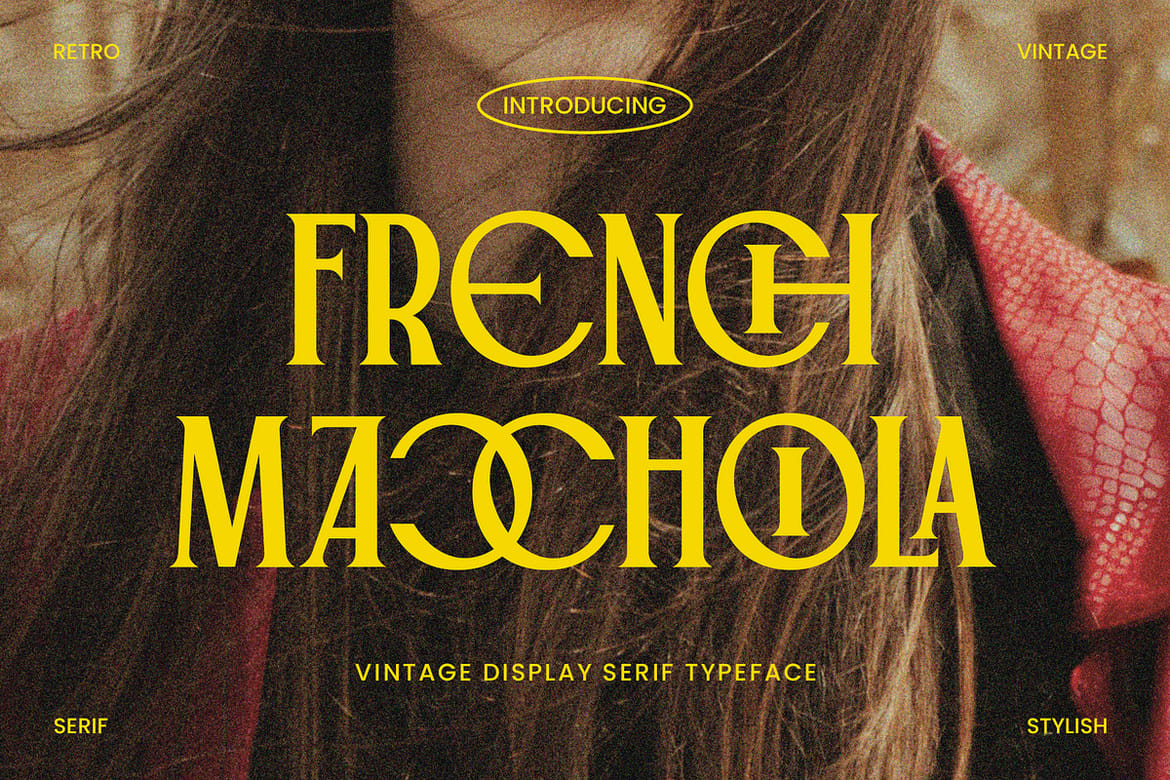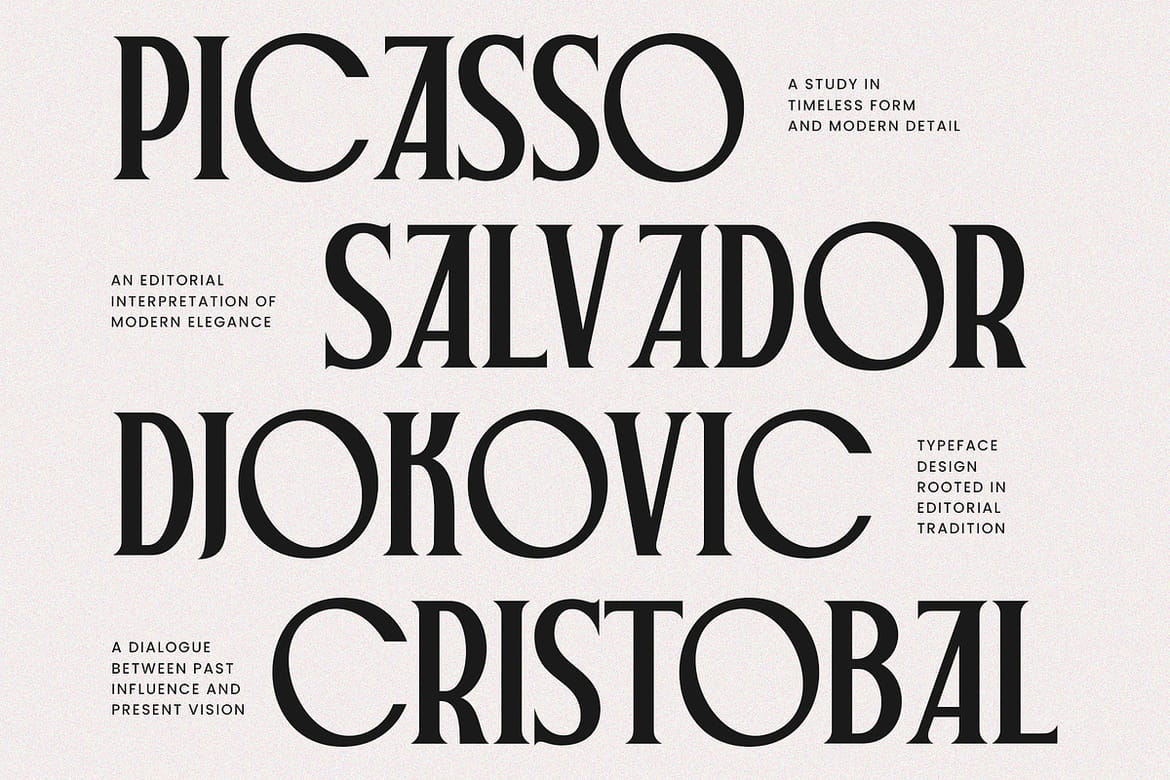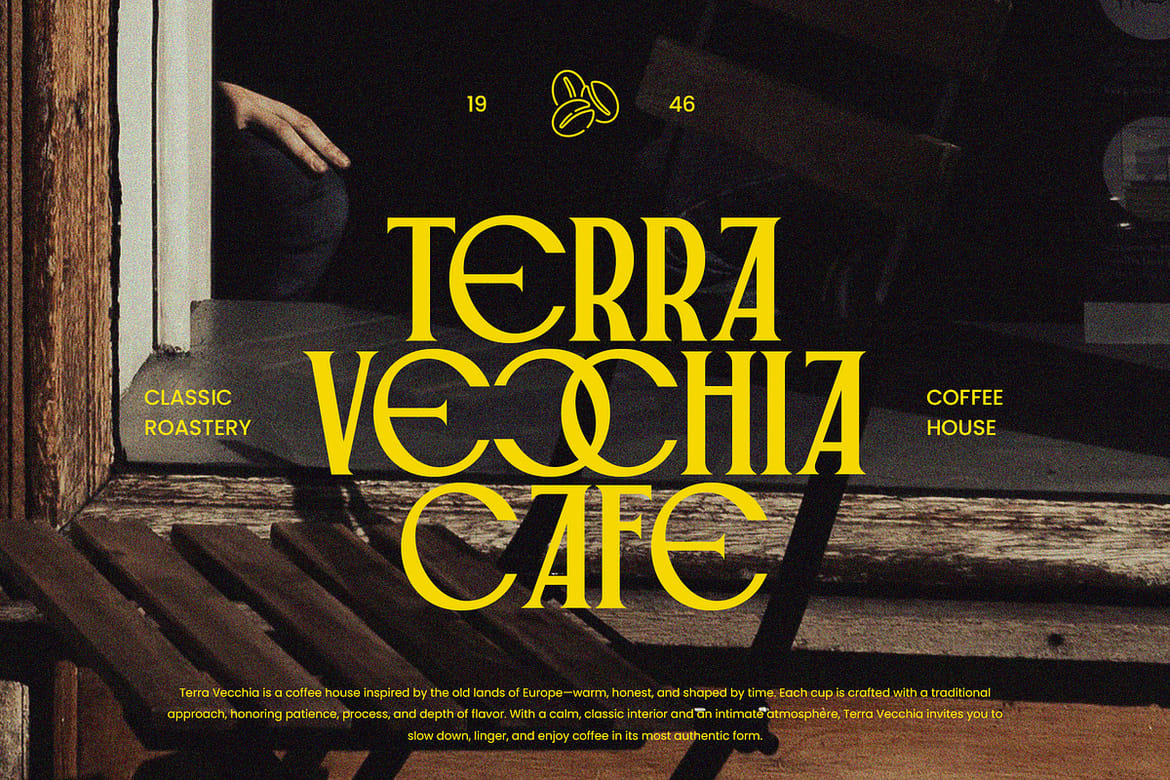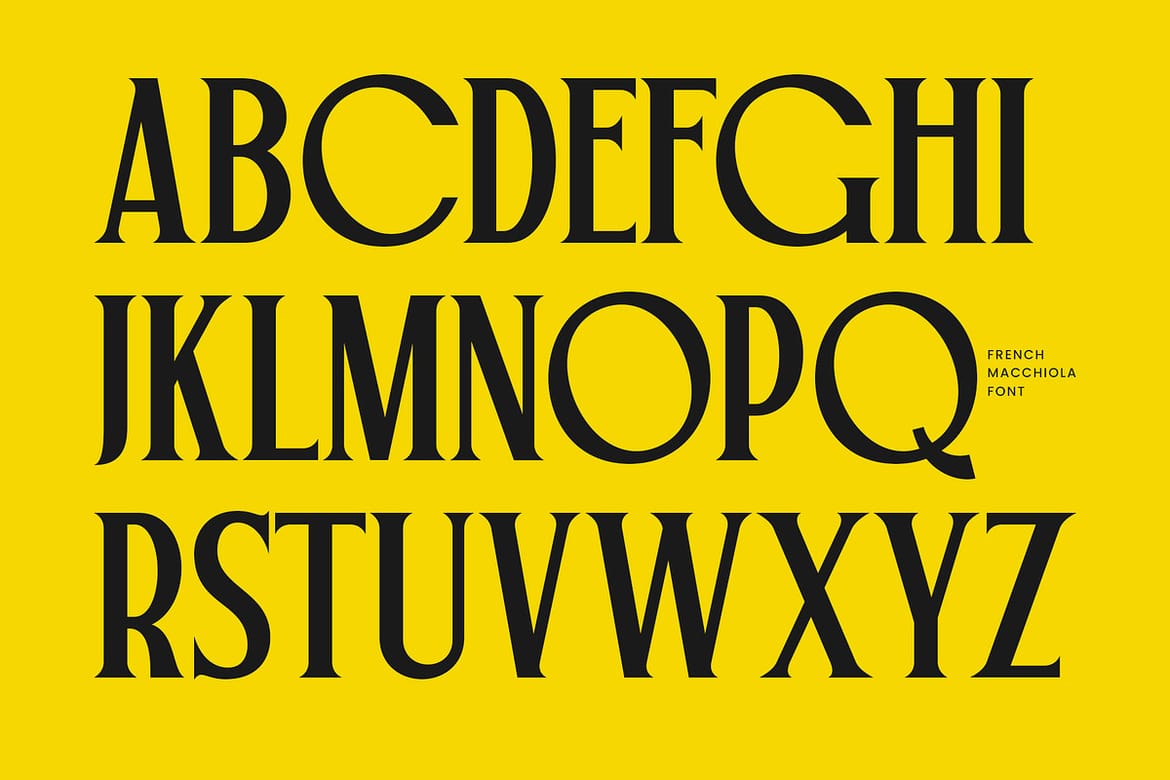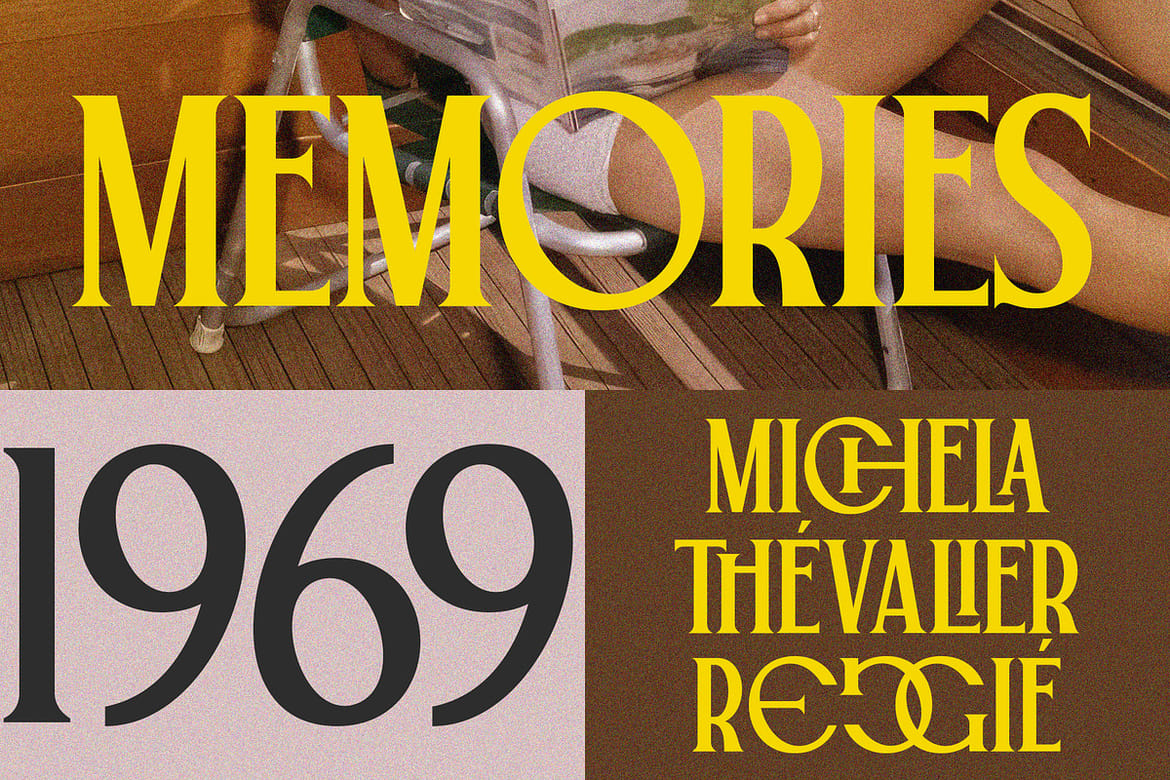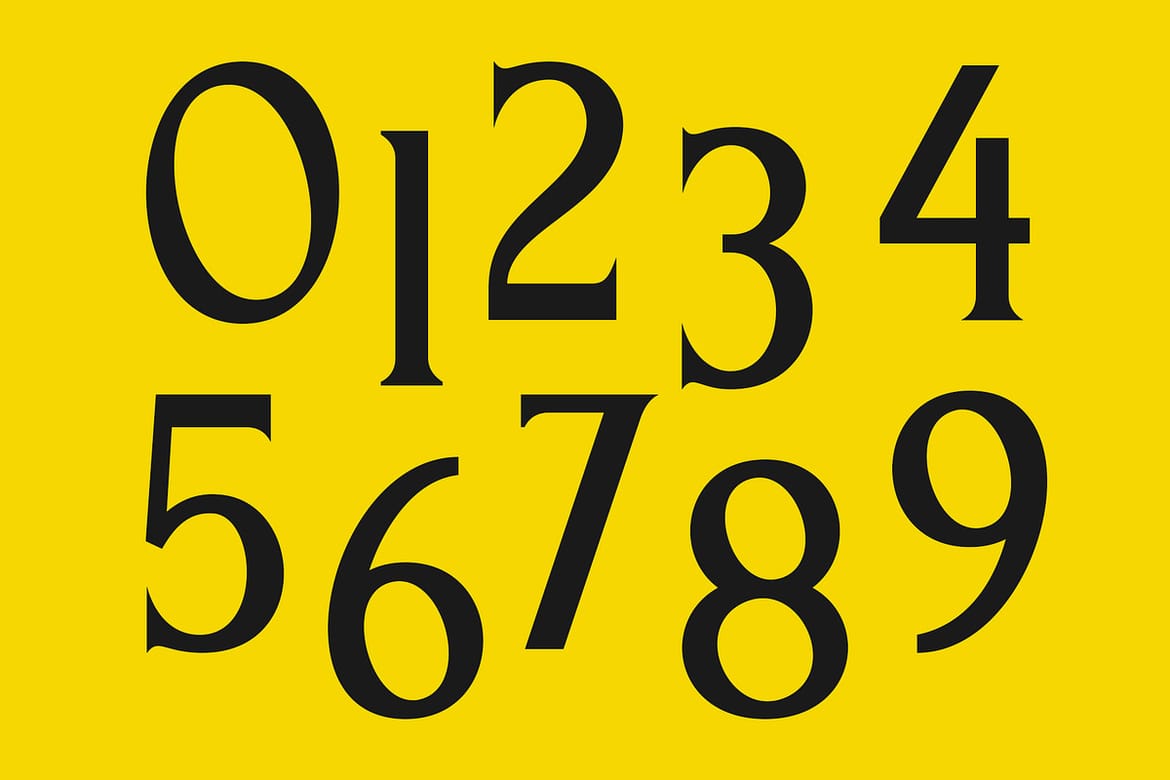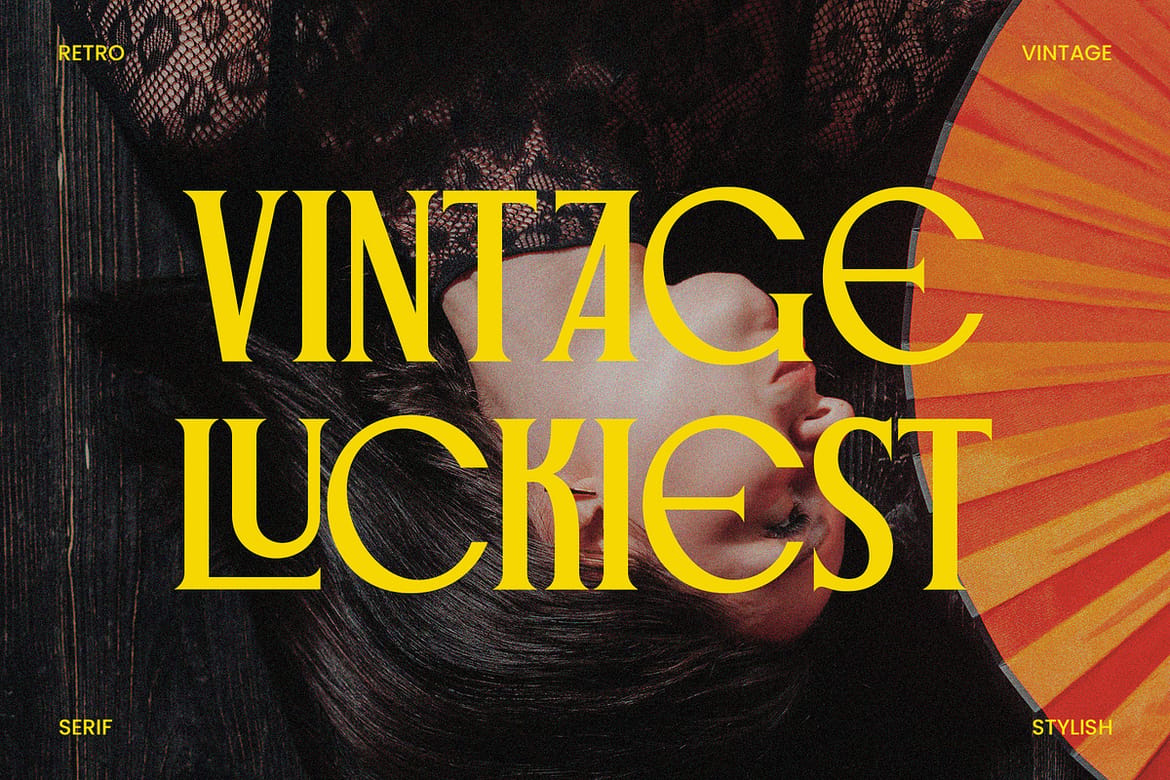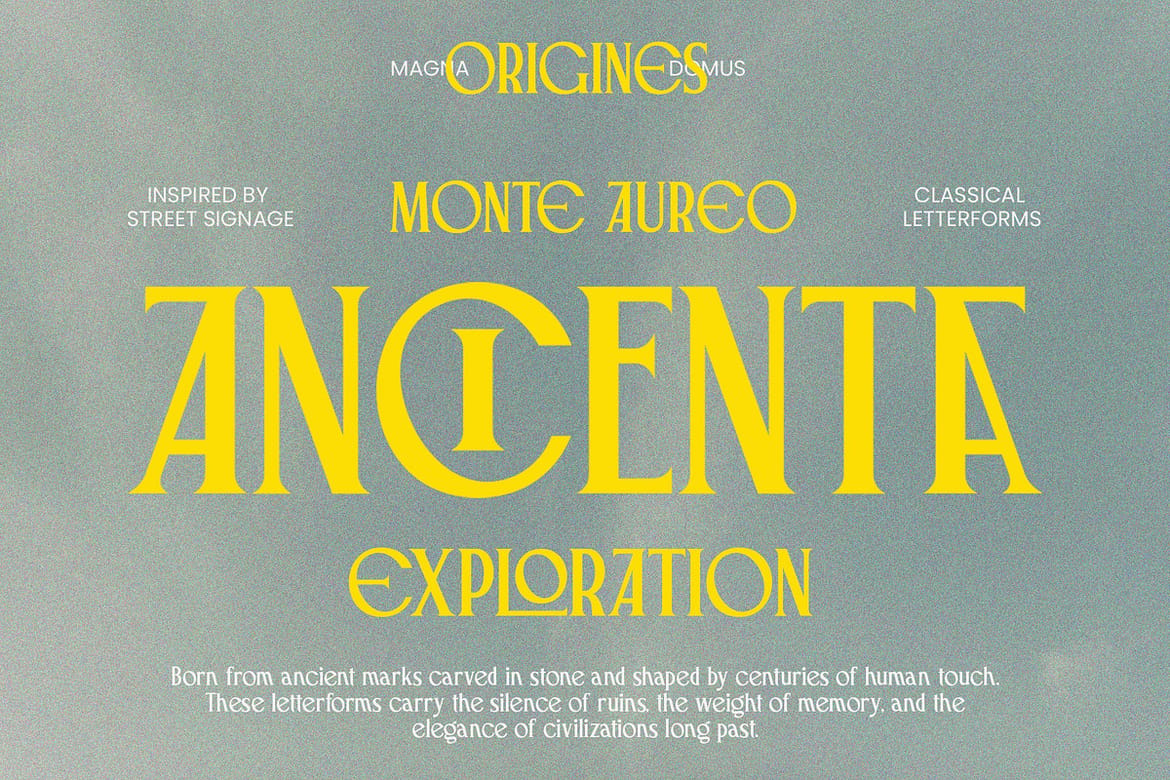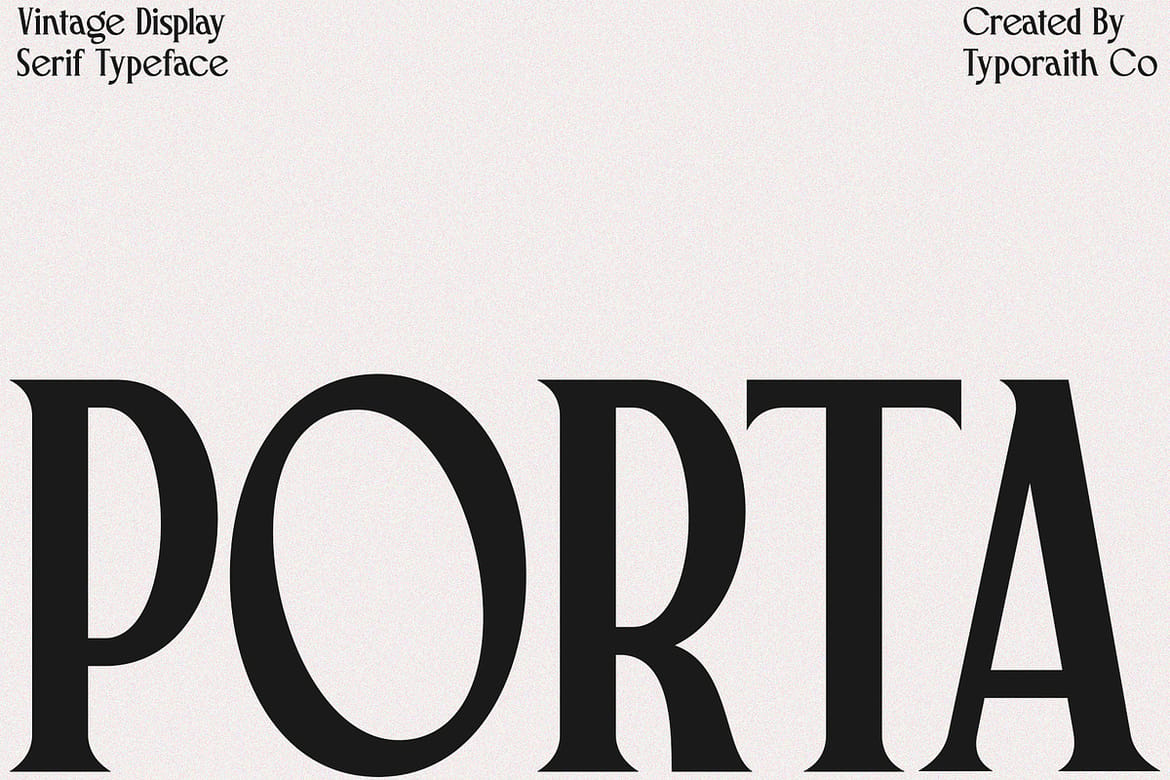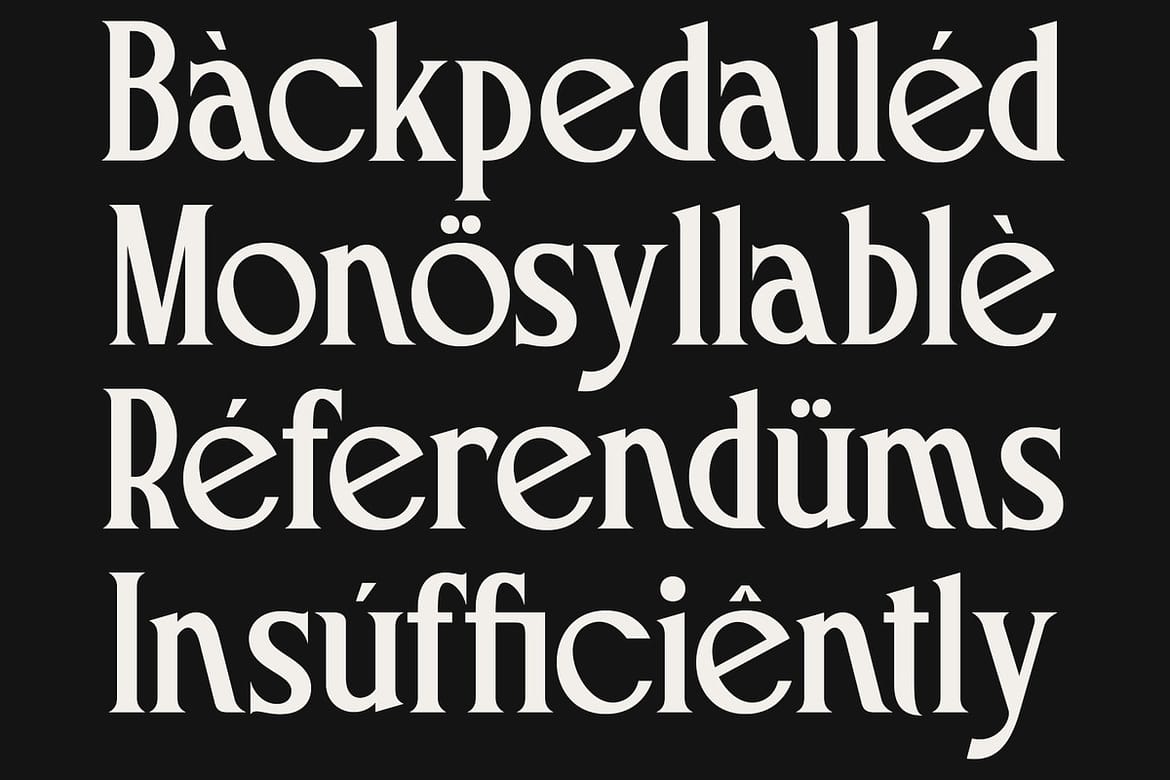
French Macchiola is a vintage-inspired display serif typeface with a strong French editorial character. Designed with elegant proportions, bold contrast, and distinctive ligatures, this font blends classic retro charm with a refined modern touch.
Inspired by old European magazines, fashion editorials, and timeless typography, French Macchiola brings a sense of sophistication, romance, and visual authority to any design. Its expressive letterforms and stylish details make it perfect for statement headlines and high-impact branding.
Whether you're working on luxury branding, wedding designs, fashion campaigns, or editorial layouts, French Macchiola delivers a bold yet elegant typographic voice.
Features:
Uppercase & Lowercase
Stylish ligatures
Multilingual Support
Punctuation & Numeral
Bring classic beauty into modern design — and let French Macchiola speak with style.
- Vintage French editorial display serif
- Bold contrast with stylish ligatures
- Ideal for luxury and fashion branding